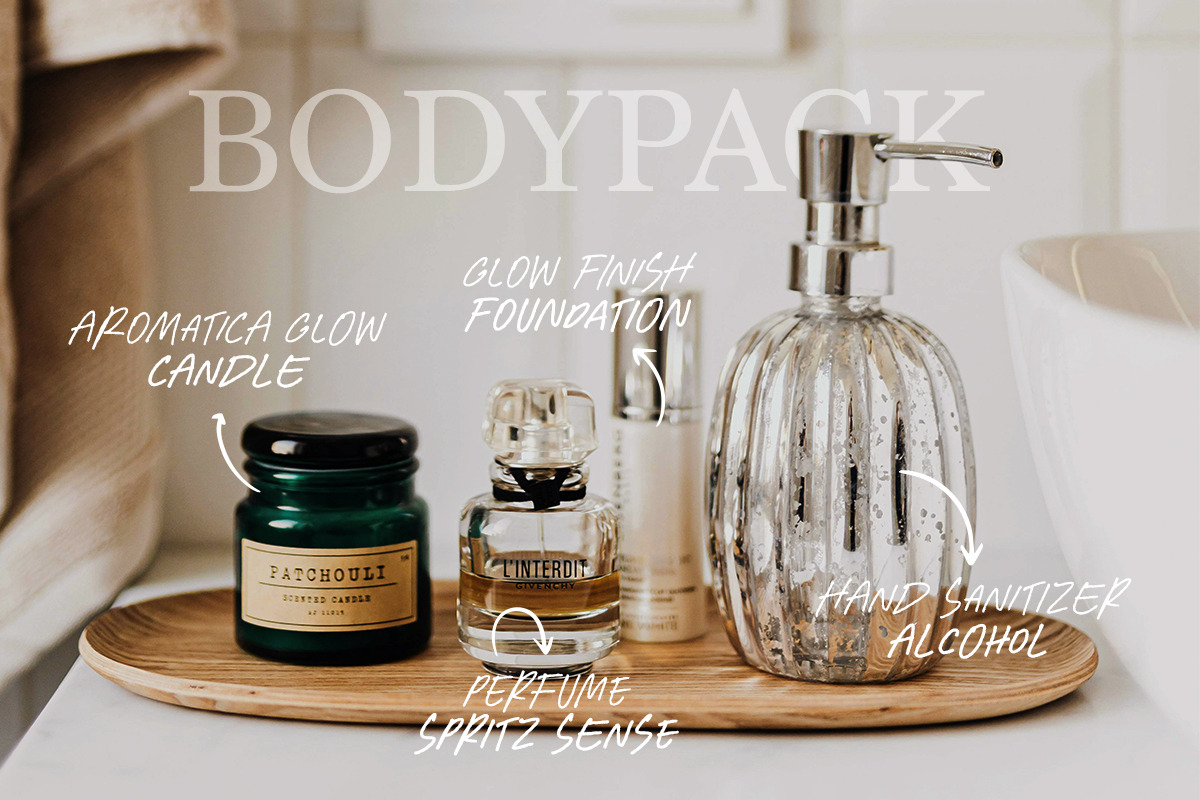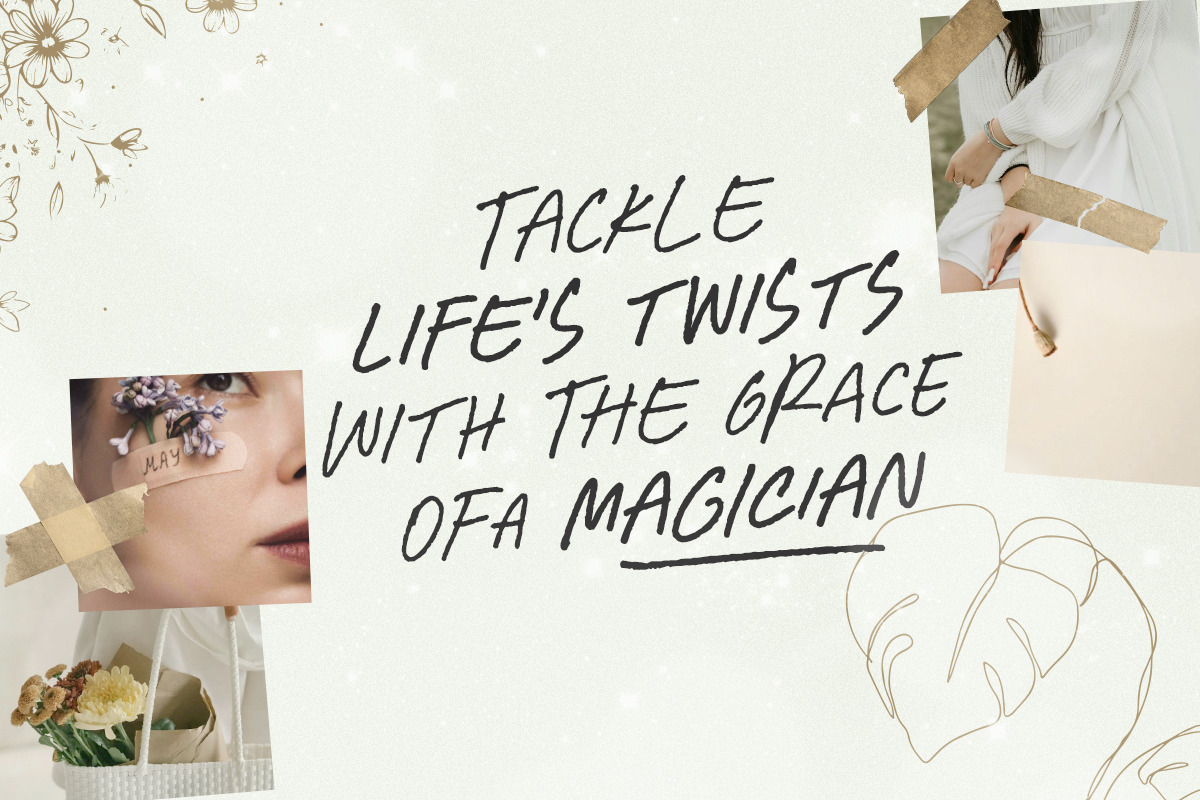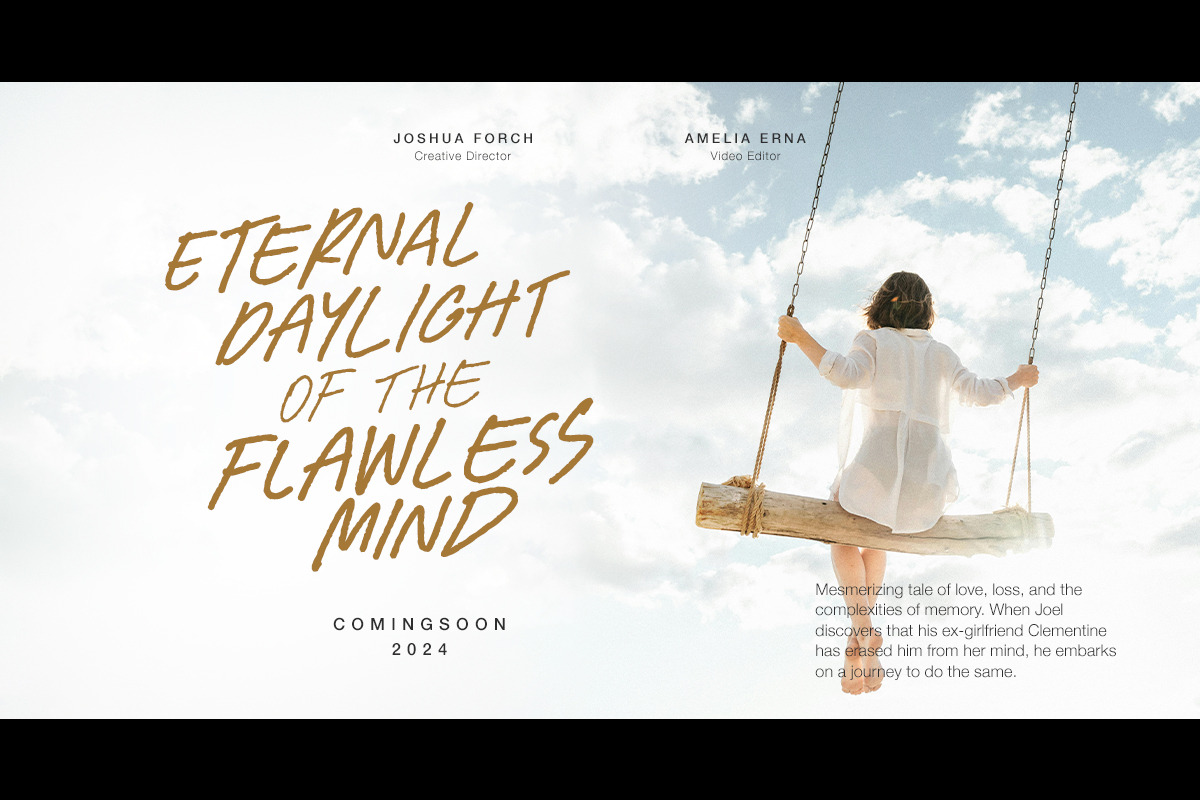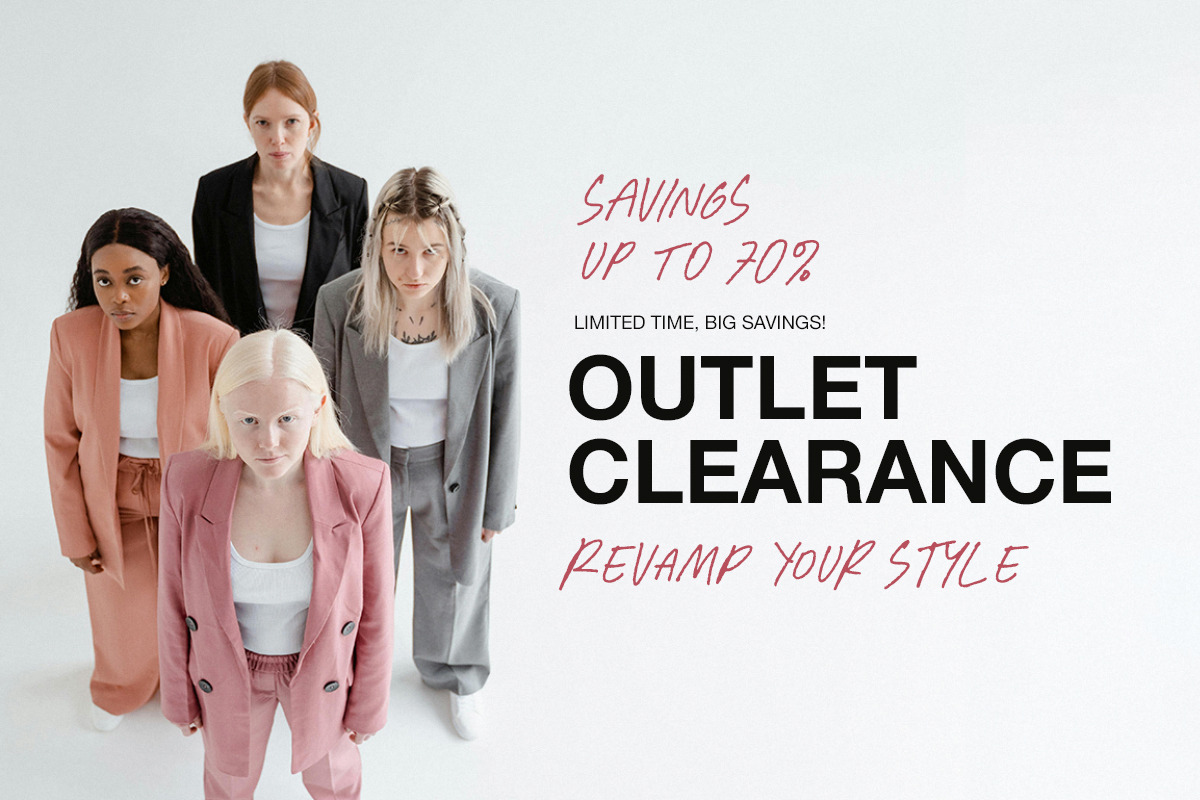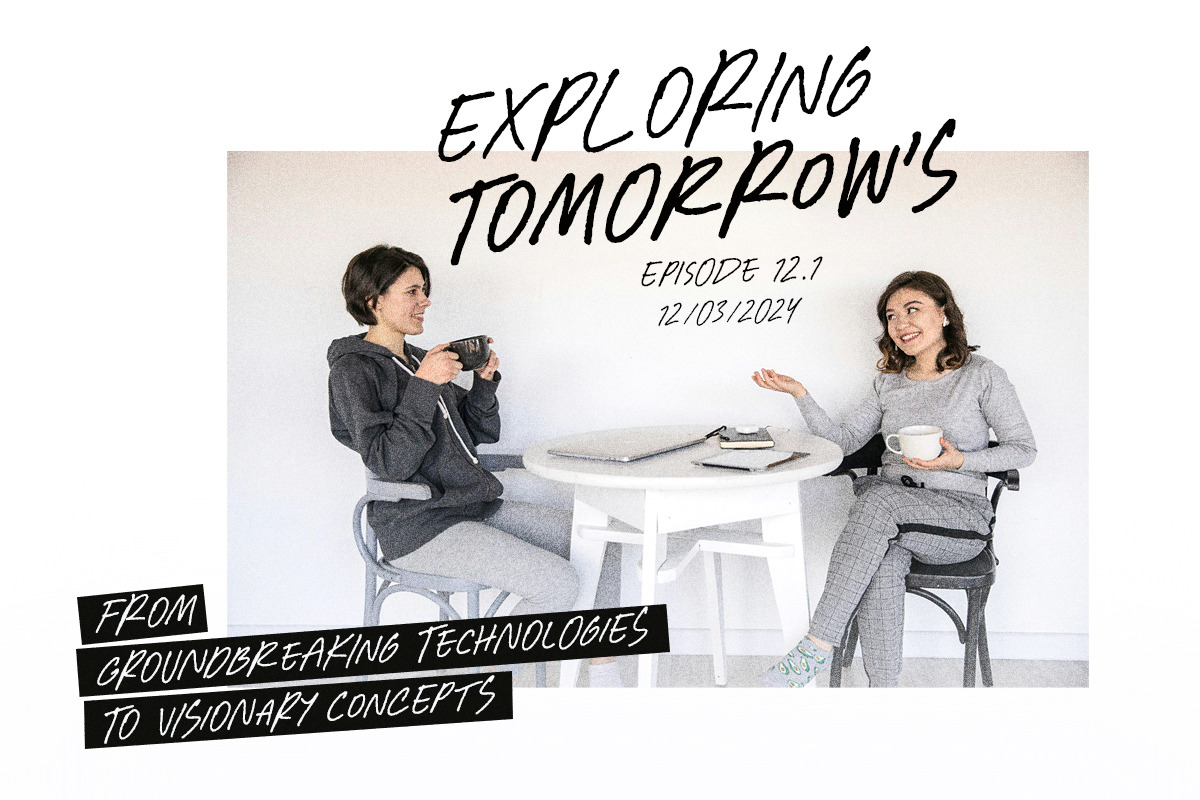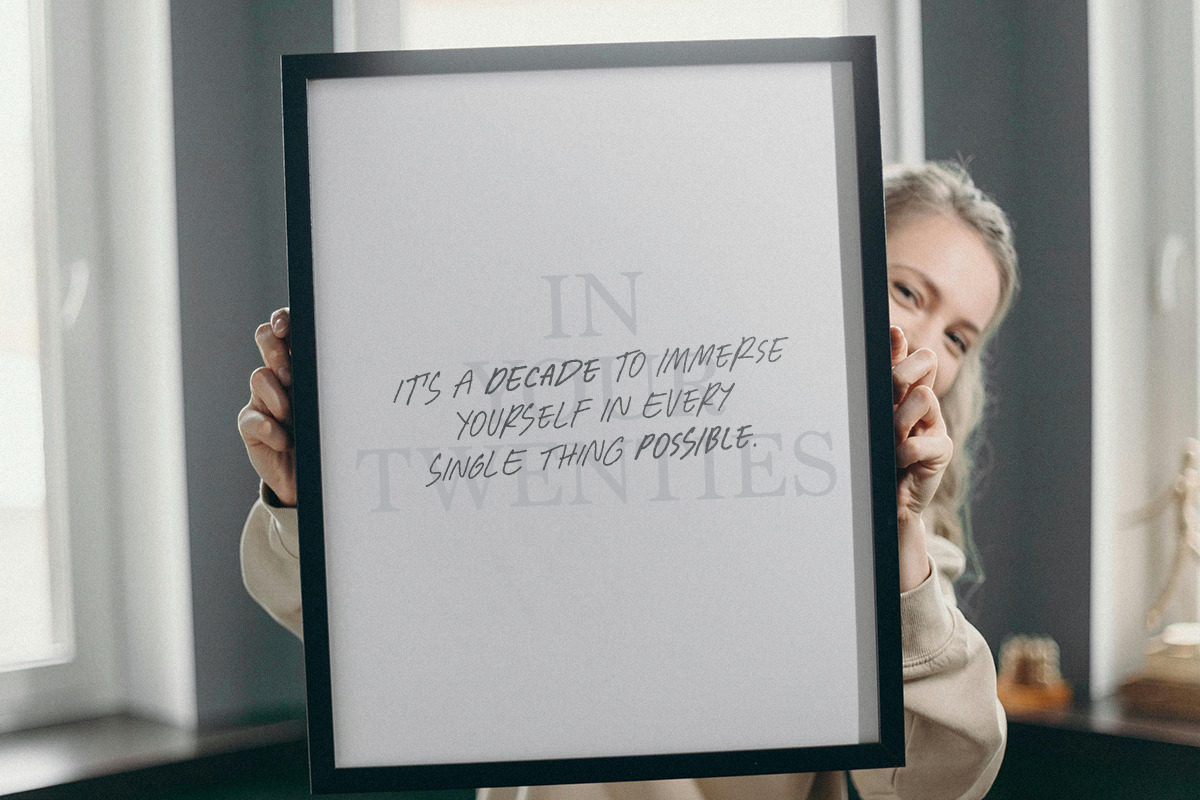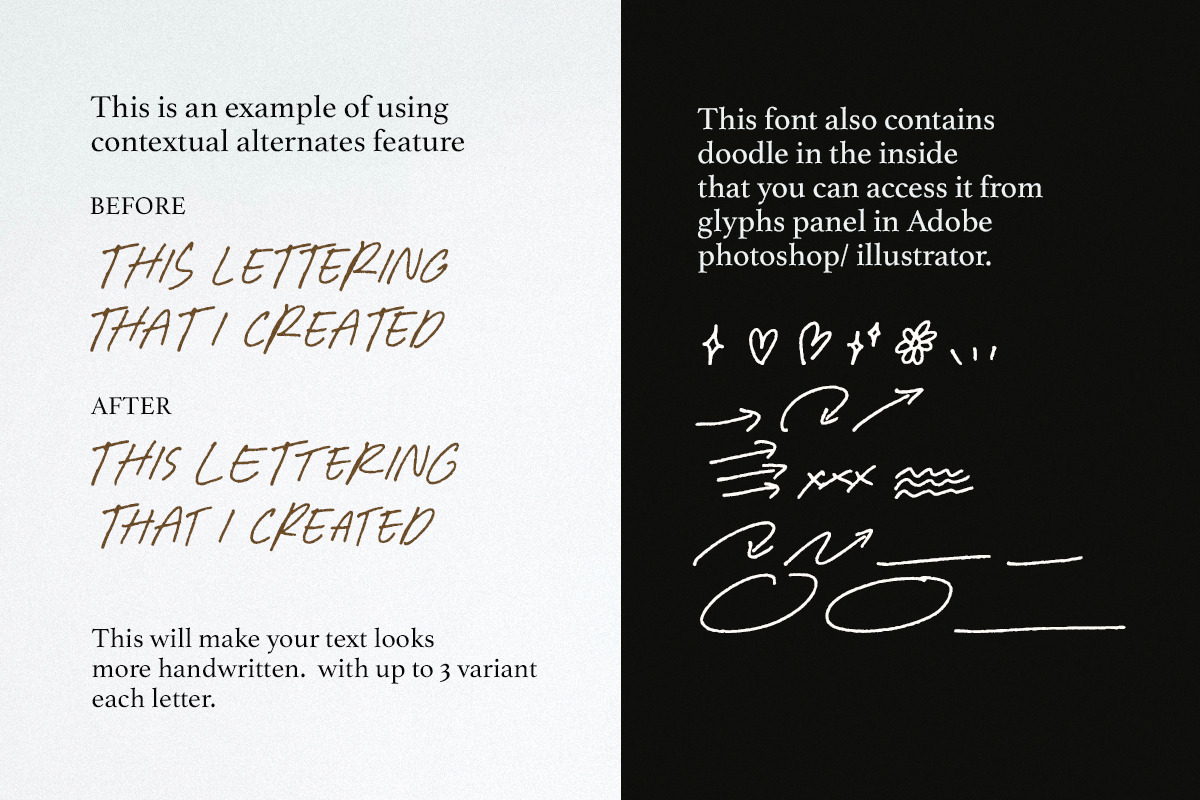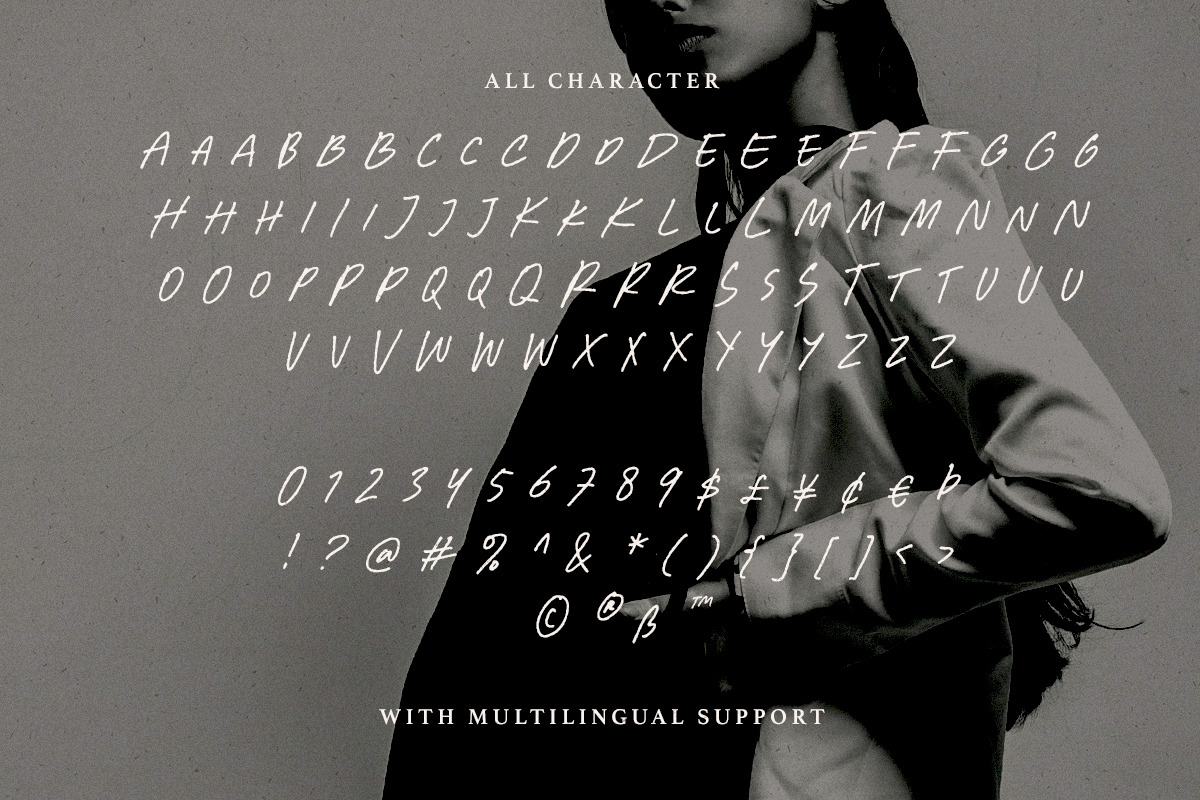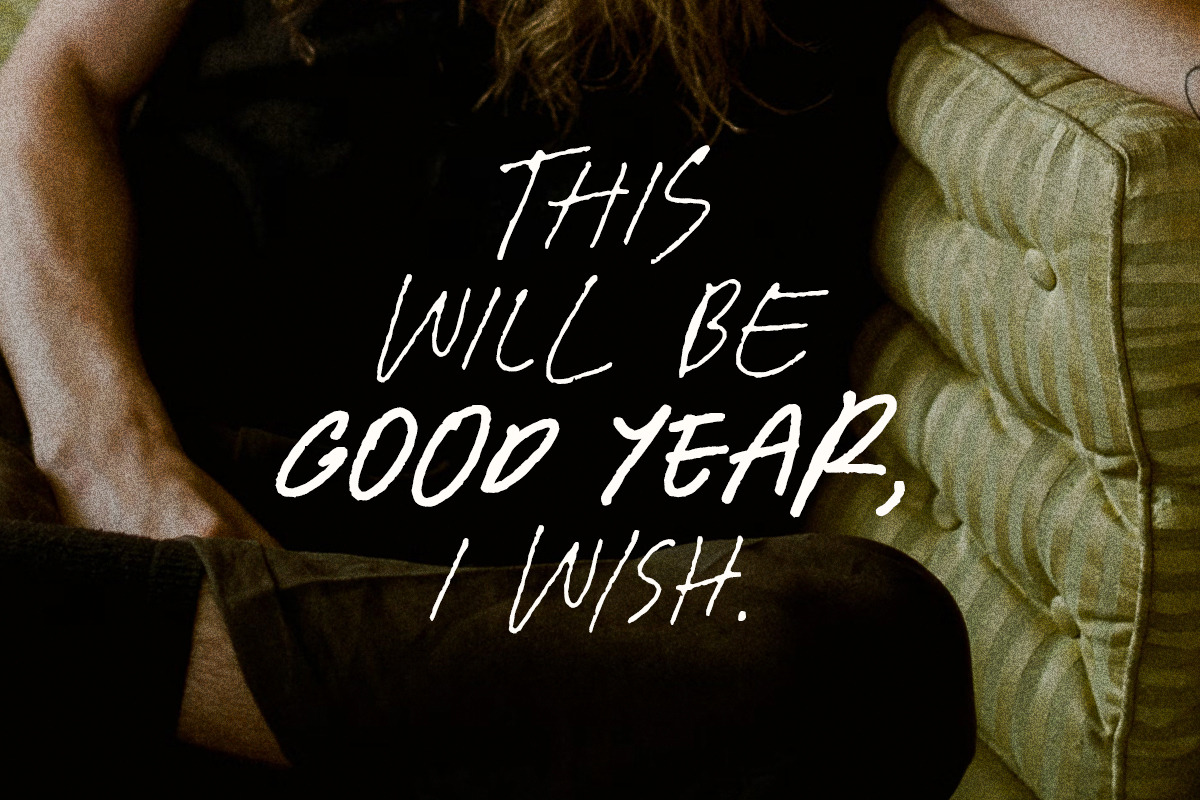
Fresh Concept - All Caps Handwritten
Fresh Concept is all caps handwritten font family including light, regular, and bold style. With up to 3 variant each letter, this font will automatically change when identical letter meets. This feature will work in the software that support contextual alternates features such as Adobe Illustrator/ Photoshop. There's cute doodles inside the font that you also can access with Photoshop/ Illustrator's Glyphs Panel.
You can use this font for quotes, suitable for menus, slogan, or anything that require rough and texture. This font also support multi language!